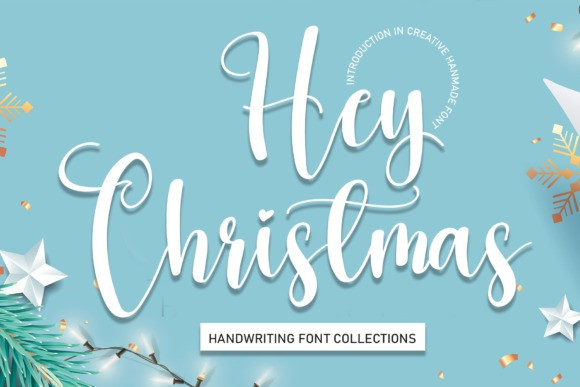
Hey Christmas Font
Hey Christmas Font is a joyful and gentle handwritten font. This dainty font will be ideal for writing wedding invitations, cards or any other design that may need a customized touch!